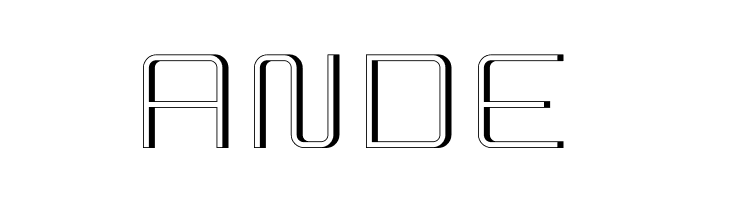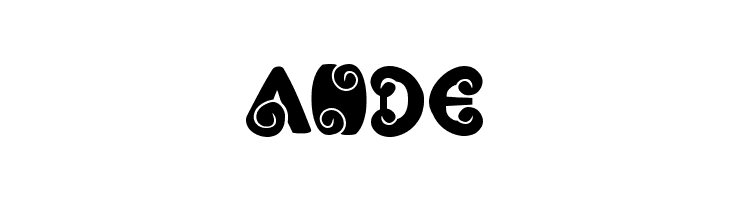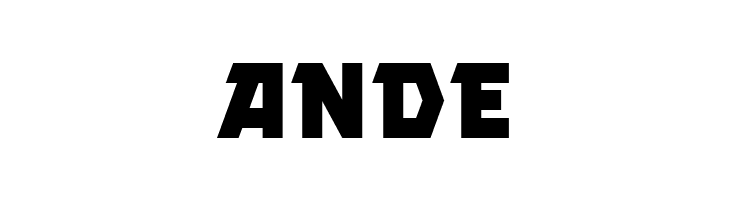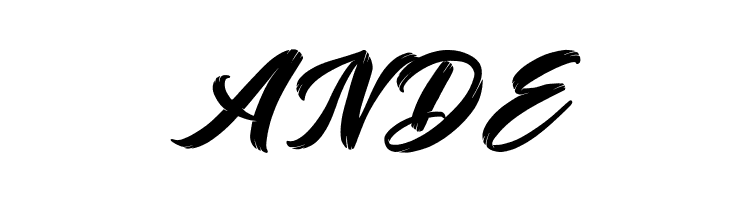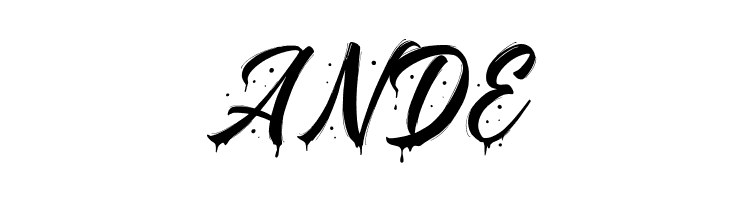
• ClassIndicativa
• Clausly
A playful, hand-drawn font with rounded, smooth strokes and a whimsical style.
• Clb:Valentine
• Cleptograph 3D
A modern, 3D geometric font with a hollow design and consistent stroke widths.
• Clickuper
( Clickuper is a free multilingual display typeface with sharp look. )
A bold, geometric font with sharp angles and a strong presence.
• Climbers
Illustrative display font featuring climbers and mountaineering scenes.
• Clothingline
• Club Sandwich
A bold, brush-style font with a unique dripping effect, perfect for artistic projects.
• Coamei Bold
A modern, geometric sans-serif font with bold, clean lines.
• Coamei Light
A clean, geometric font with thin lines and a modern aesthetic.
• Coamei Regular
A modern sans-serif font with geometric shapes and uniform strokes.
• Cocobels bold
A bold, decorative font with playful swirls and curves.
• CodianOctoberEight
A modern serif font with high contrast and elegant strokes.
• CodianOctoberEight-Italic
An elegant italic serif font with smooth, flowing lines and refined serifs.
• CodianOctoberNine
A decorative font with intricate line patterns and an art deco influence.
• Coincidences
An artistic and illustrative font featuring unique graphic representations for each character.
• Colors Of Autumn
A bold, energetic script font with sweeping strokes and dynamic flair.
• Colotus Personal Use
A bold, distressed font with a vintage, textured appearance.
• ComeInside
A bold, textured font with a playful and whimsical style.
• Comical Smash
A bold, jagged font with a playful, energetic style.
• Coming Soon St
A decorative font with bold characters enclosed in boxes, featuring a marquee light style.
• Complex bruja